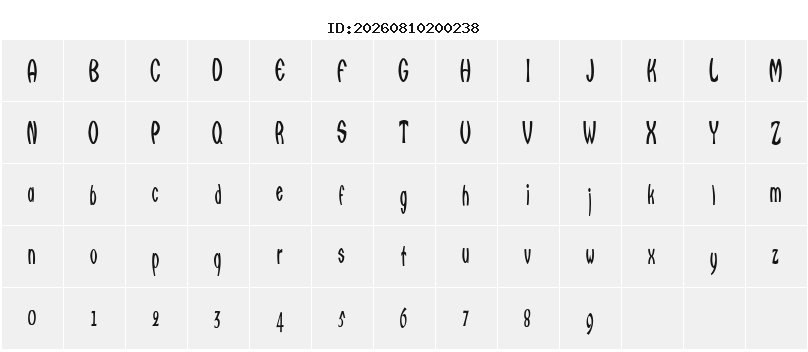
• Font Name: Qarats
• Full Font Name: Qarats
• PostScript Name: Qarats
About Qarats.ttf
Qarats.ttf is a modern, elegant sans-serif font designed for ultimate readability and visual harmony. Perfect for branding, headlines, web design, and print materials.